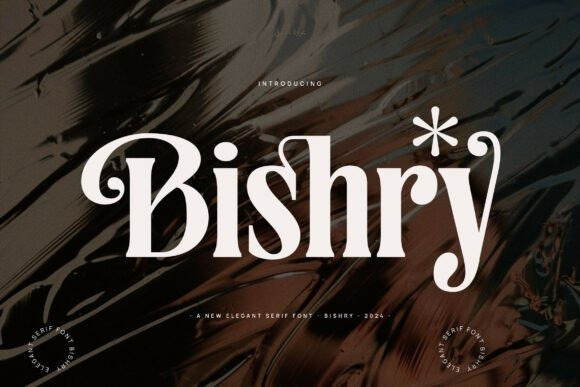
Bishry Font
Designer: Ariya Works Studio
Bishry Font is an elegant and bold serif font. Fall in love with its incredibly versatile style and use it to create gorgeous wedding invitations, beautiful stationary art, eye-catching social media posts, and much more!